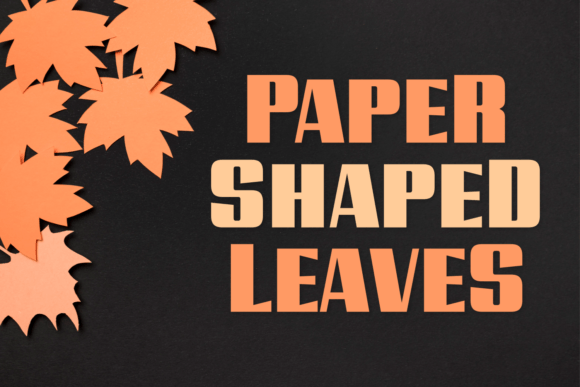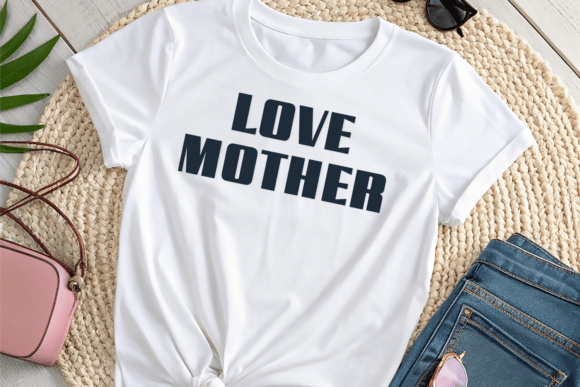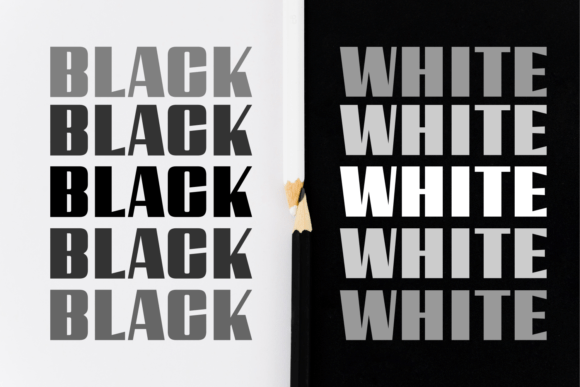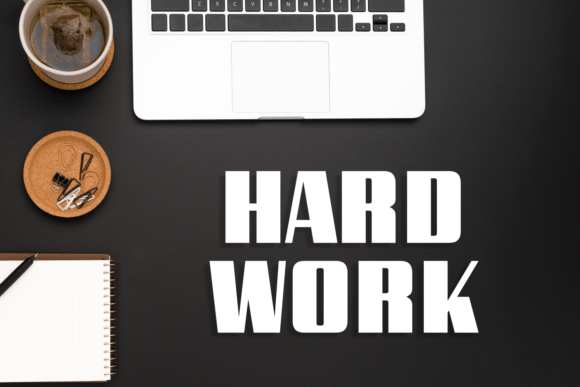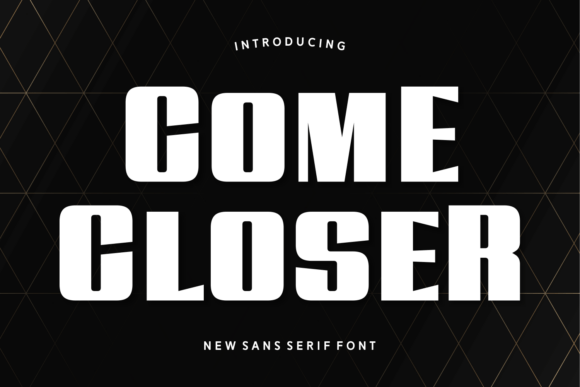
Introducing Come Closer Font: The Bold and Modern Sans Serif for Impactful Designs
In the world of typography, fonts play a crucial role in conveying messages, setting tones, and creating visual identities. For designers and crafters looking for a font that makes a statement, Come Closer Font is an excellent choice. This bold, modern sans serif font is designed to demand attention, making it perfect for headlines, posters, branding, and any project that requires a strong visual impact.
Key Features of Come Closer Font
Come Closer Font boasts several key features that set it apart from other fonts:
- Sharp Geometric Cuts: The font’s sharp geometric cuts give it a sleek, modern look that’s perfect for contemporary designs.
- High-Impact Letterforms: The letterforms are designed to make a statement, with bold lines and confident curves that grab attention.
- Wide Stance: The font’s wide stance gives it an industrial feel, perfect for designs that require a strong, confident aesthetic.
Perfect for Fashion, Sports, and Tech Designs
Come Closer Font is particularly well-suited for designs in the fashion, sports, and tech industries. Its modern, industrial feel makes it perfect for:
- Fashion Brands: Use Come Closer Font to create bold, eye-catching logos and advertisements that showcase your brand’s style and confidence.
- Sports Teams: The font’s strong, athletic feel makes it perfect for sports teams and events that require a bold, high-energy visual identity.
- Tech Companies: Come Closer Font’s modern, cutting-edge aesthetic makes it an excellent choice for tech companies looking to establish a strong, innovative brand image.
Why Choose Come Closer Font?
With so many fonts available, why choose Come Closer Font? Here are just a few reasons:
- Versatility: Come Closer Font is perfect for a wide range of design applications, from headlines and posters to branding and packaging.
- Readability: Despite its bold, attention-grabbing design, Come Closer Font remains highly readable, even at smaller sizes.
- Uniqueness: Come Closer Font’s unique blend of geometric cuts and industrial feel sets it apart from more traditional sans serif fonts.
Tips for Using Come Closer Font
To get the most out of Come Closer Font, here are a few tips:
- Use it boldly: Come Closer Font is designed to make a statement, so don’t be afraid to use it in bold, attention-grabbing applications.
- Pair it with contrasting fonts: Combine Come Closer Font with contrasting fonts to create visual interest and add depth to your designs.
- Experiment with colors: Come Closer Font looks great in a wide range of colors, so don’t be afraid to experiment and find the perfect hue for your design.
Come Closer Font is a bold, modern sans serif font that’s perfect for designers and crafters looking to make a statement. With its sharp geometric cuts, high-impact letterforms, and industrial feel, this font is built for headlines, posters, branding, and anything that needs to make a strong visual statement. Whether you’re working on a fashion, sports, or tech design, Come Closer Font is an excellent choice. So why wait? Download Come Closer Font today and start creating impactful designs that demand attention!